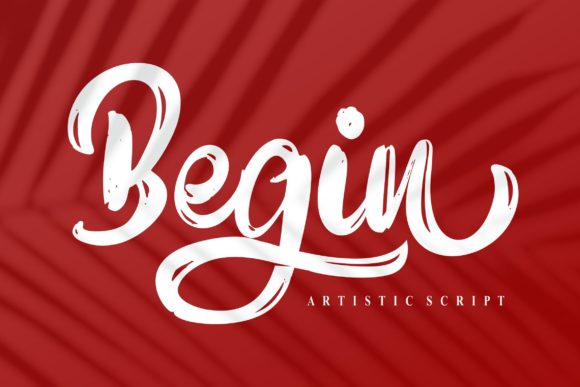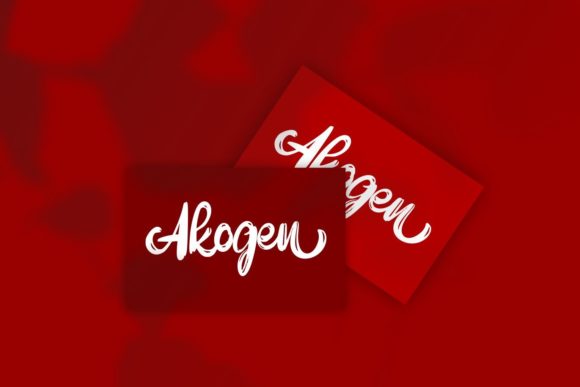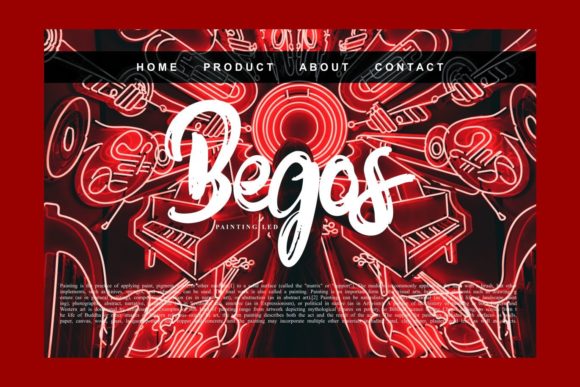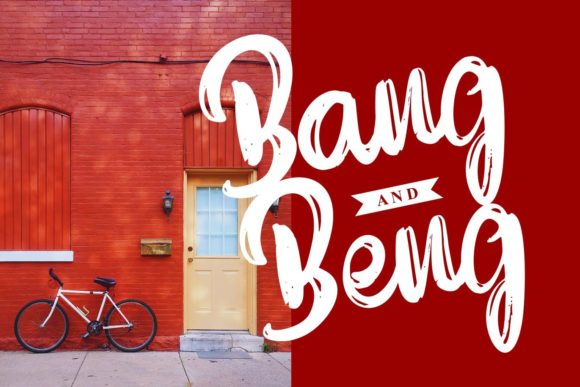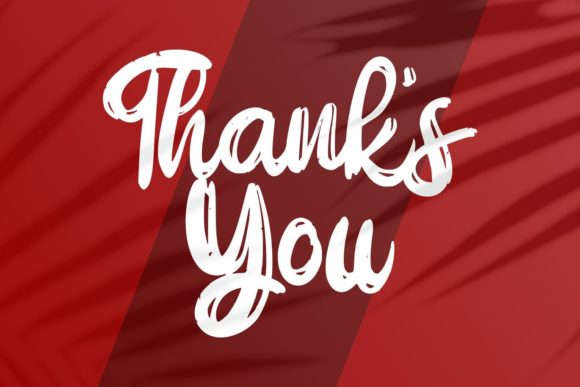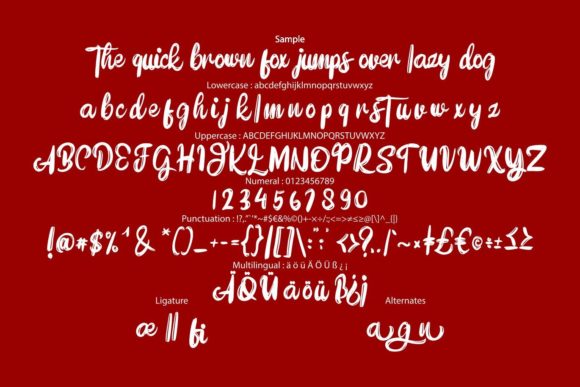
Begin Font
About Begin Font
Begin is a lovely and brushed handwritten font. It is the best choice for creating eye catching logos, branding and quotes. Every letter has a unique and beautiful touch, which will make your design come alive!